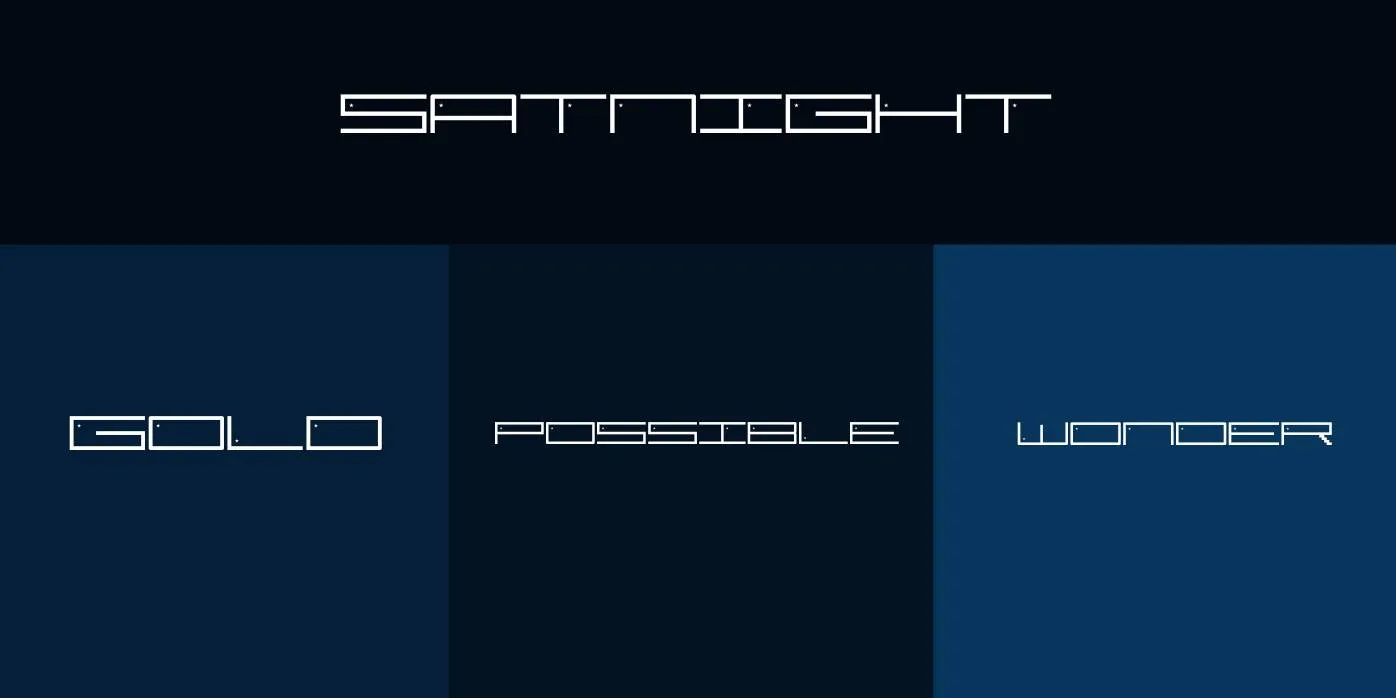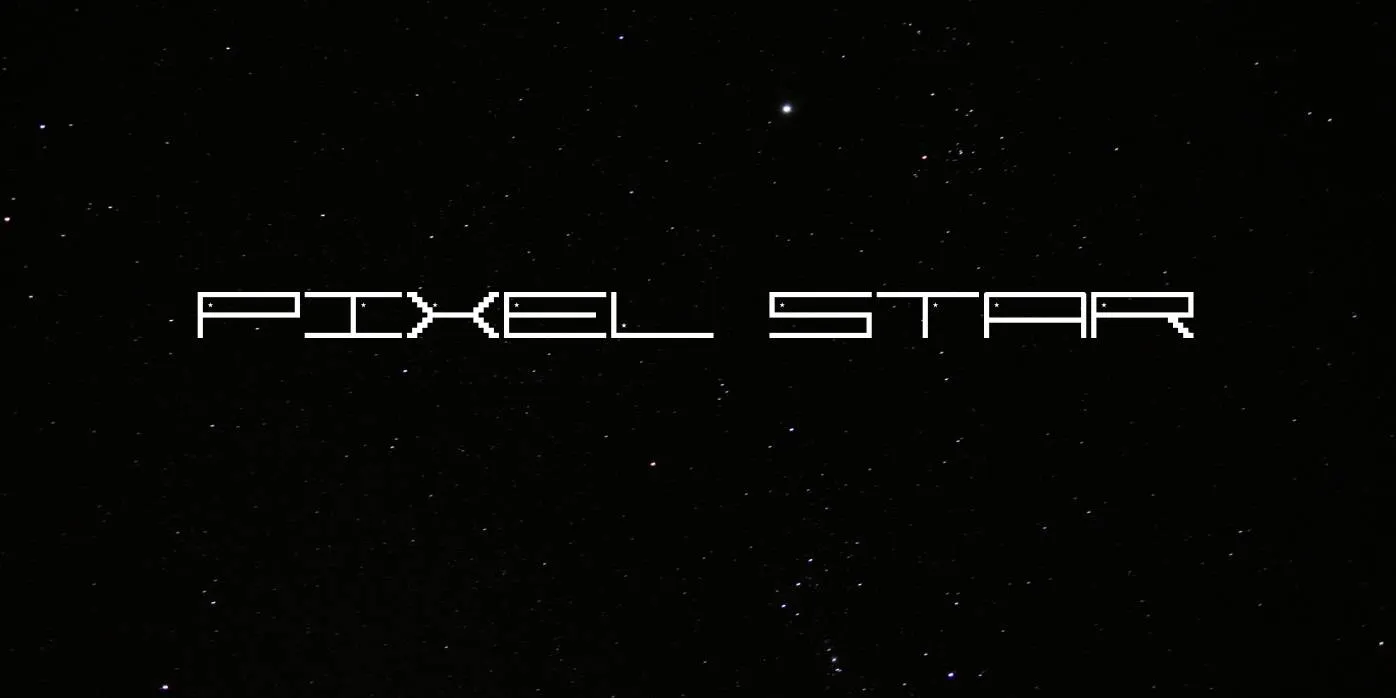
Pixel Star Font
Here we discuss detailed information about Pixel Star Font. This font was designed by Lewis Jones. It is a techno font and has a very unique square look. This font has so many features which make it perfect for use in technology-related projects.
You can be read easily rather than other pixel fonts. Unicode supported by this font is 2.0 and BMP only. It contains 101 characters, 98 glyphs, and 1024 units per Em. You can also use it for pairing with other fonts like press start font to give a more attractive look to your projects.
Usage For making attractive techno projects you can use this font easily. You can use this font for programming like in CSS and Java. You can use it for making website designs and graphics designs. It can be used to design different types of video games.
It was very famous in the 90s and gives a very clear look. This font is also used to print banners, posters, flyers, and brochures. For making social media posts and YouTube thumbnails this font can also be used. You can use this font to make attractive Logos for different brands and organizations.